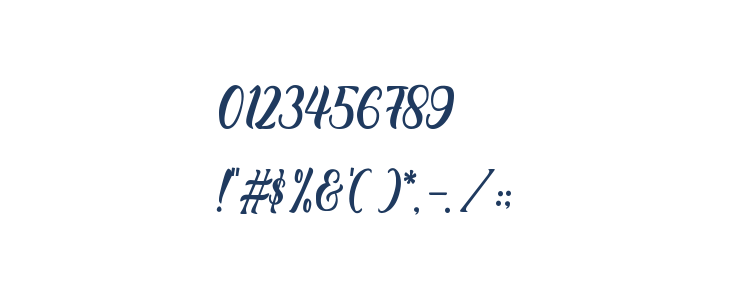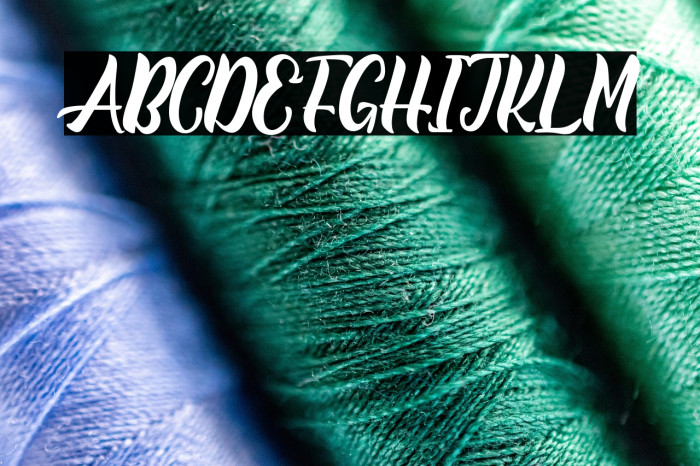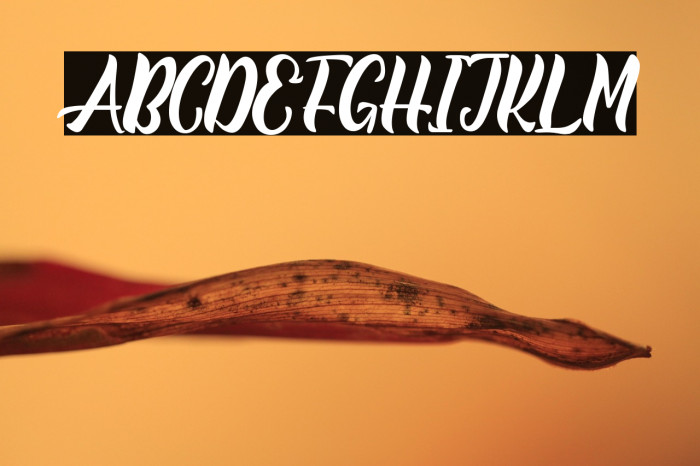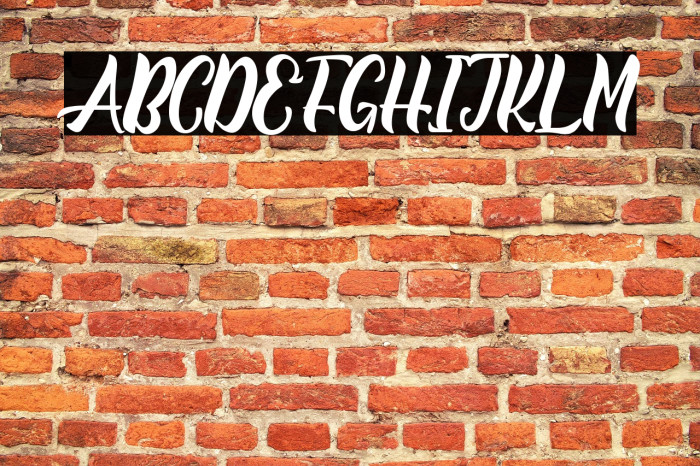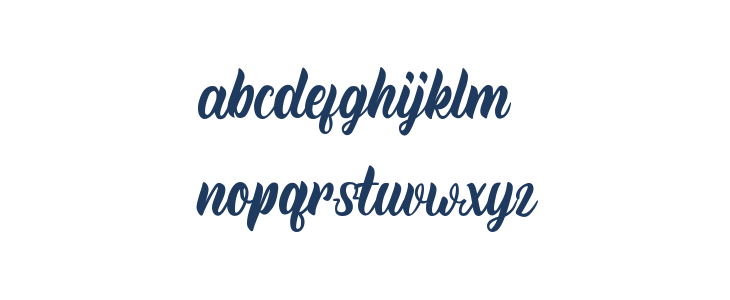
Rineghan Font
Rineghan Description
This font features a bold and flowing script style, characterized by its elegant and smooth curves. The uppercase letters are slightly more ornate, with sweeping lines that add a touch of sophistication. The lowercase letters maintain a consistent flow, making them highly legible despite their decorative nature. Numbers and special characters are crafted with the same attention to detail, ensuring a cohesive look across all elements. The font's overall appearance is both stylish and versatile, suitable for a variety of design projects.
| Overall Style | Elegant, Decorative |
| Proposed Projects | Ideal for wedding invitations, branding, logo design, and elegant packaging. |